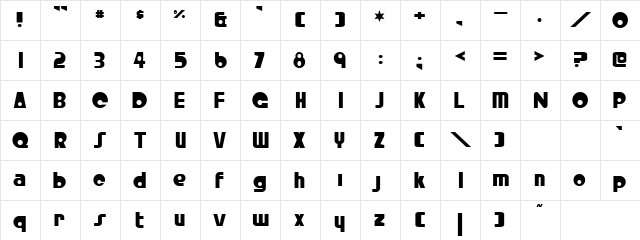
Fariene O Deir Regular
Design Context for Fariene O Deir Typeface
Fariene O Deir offers clean, dependable letterforms without strong stylistic allegiance, making it a practical choice for designers who need flexibility.